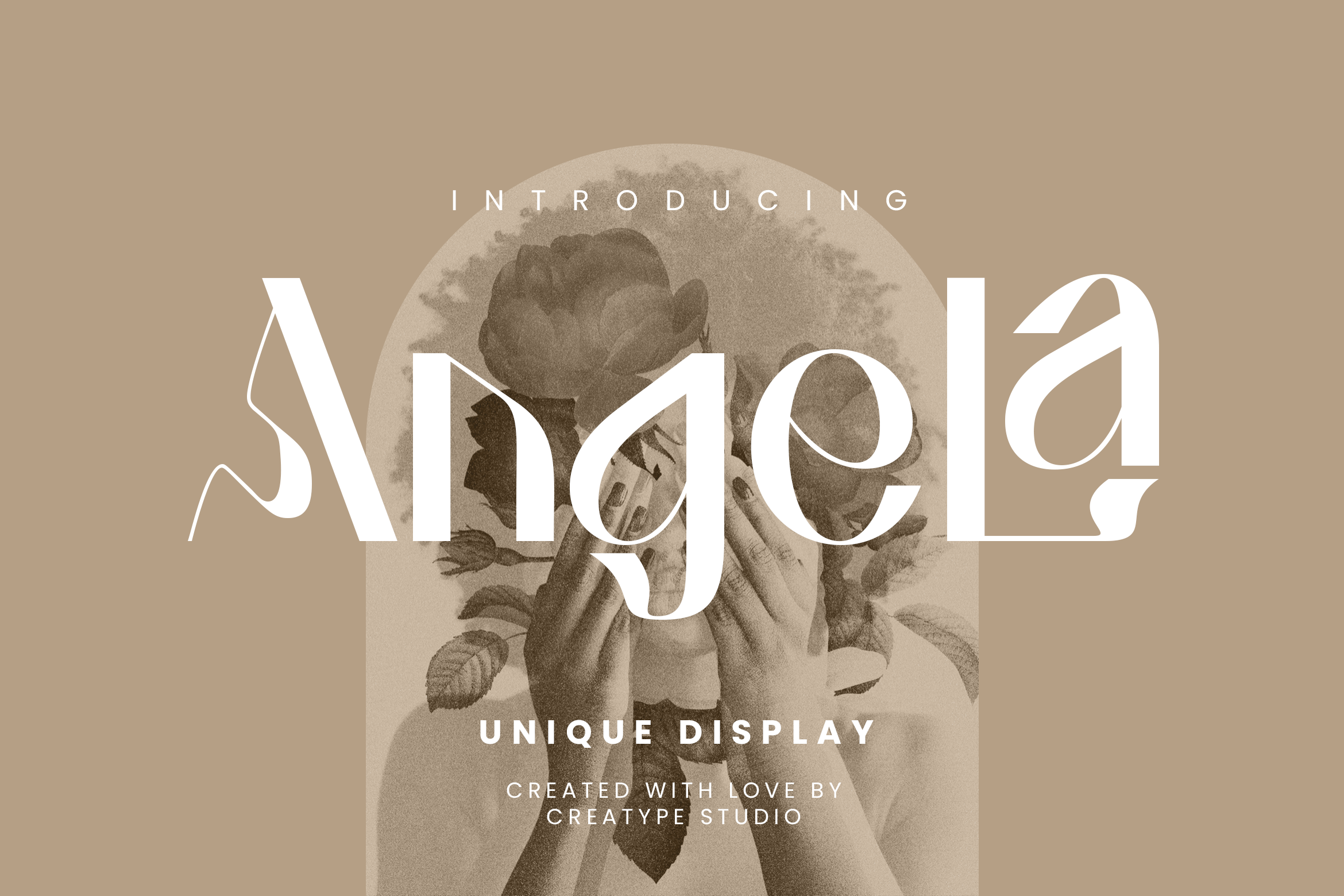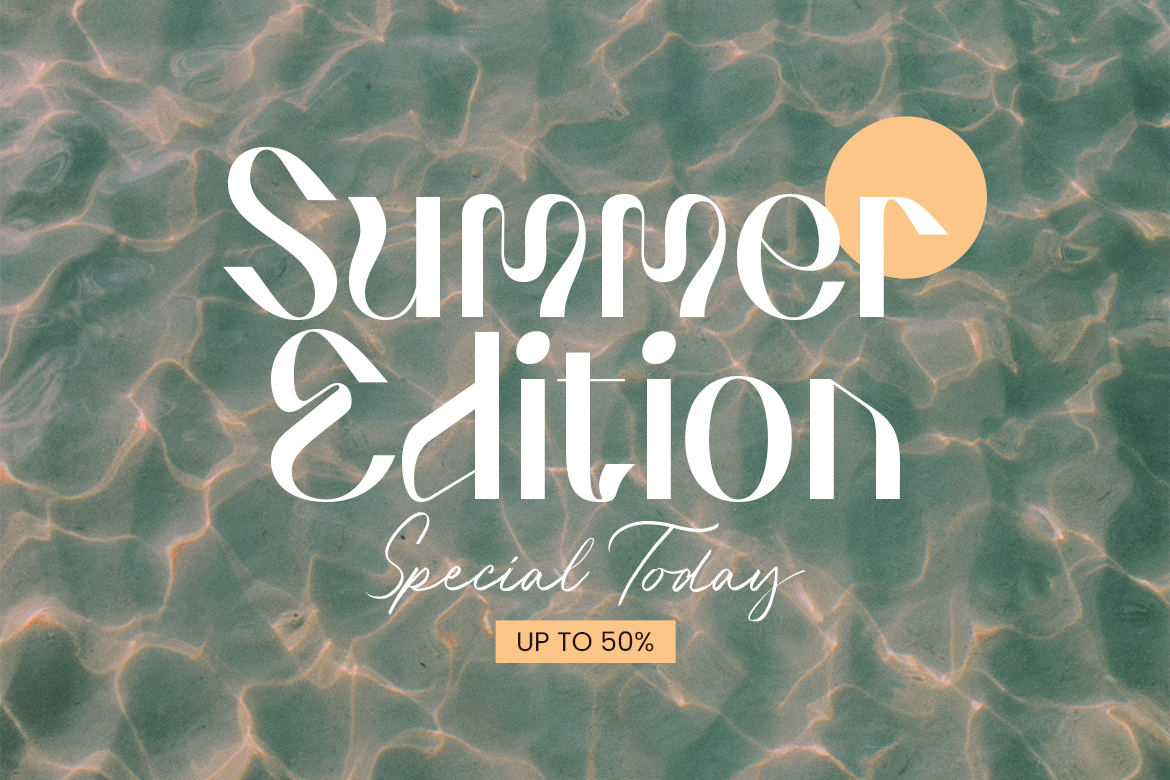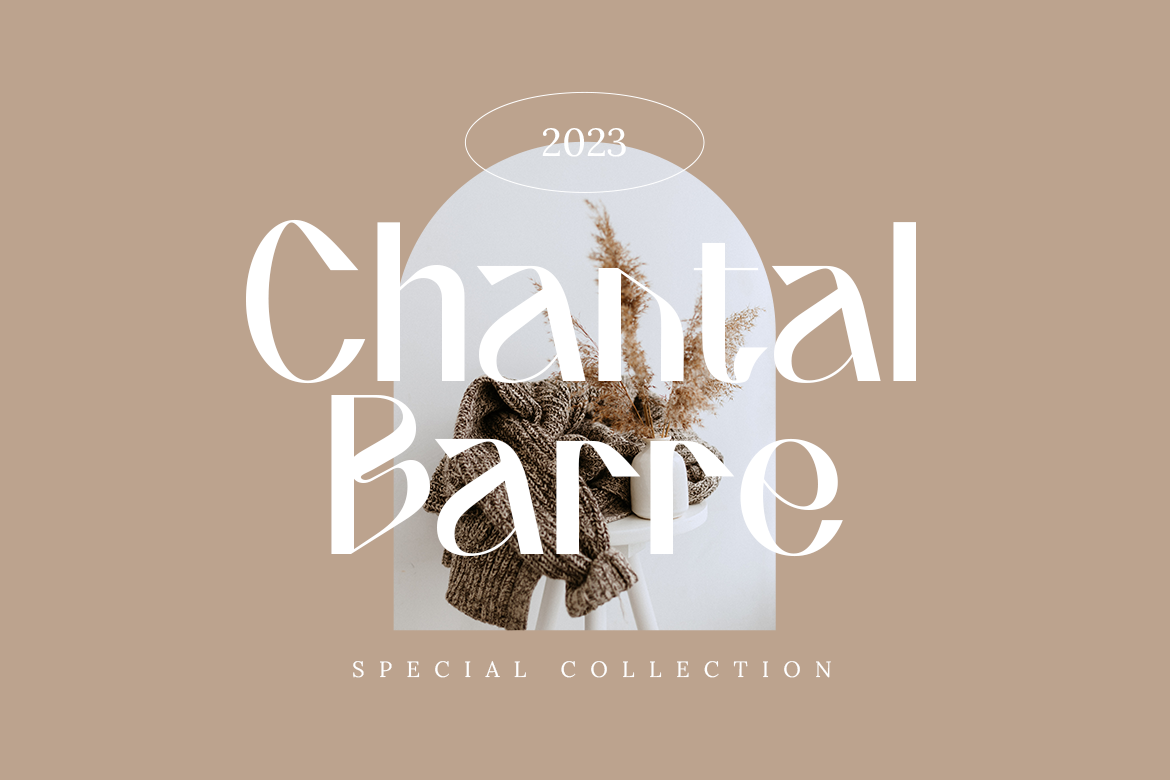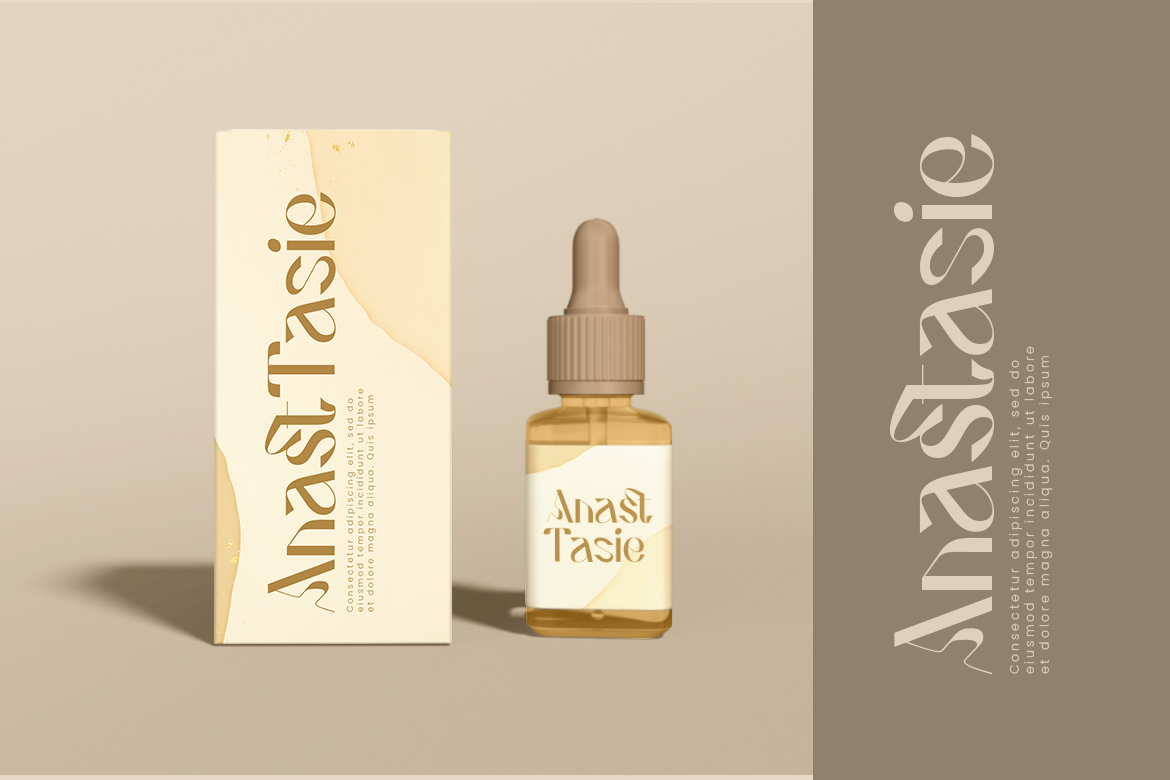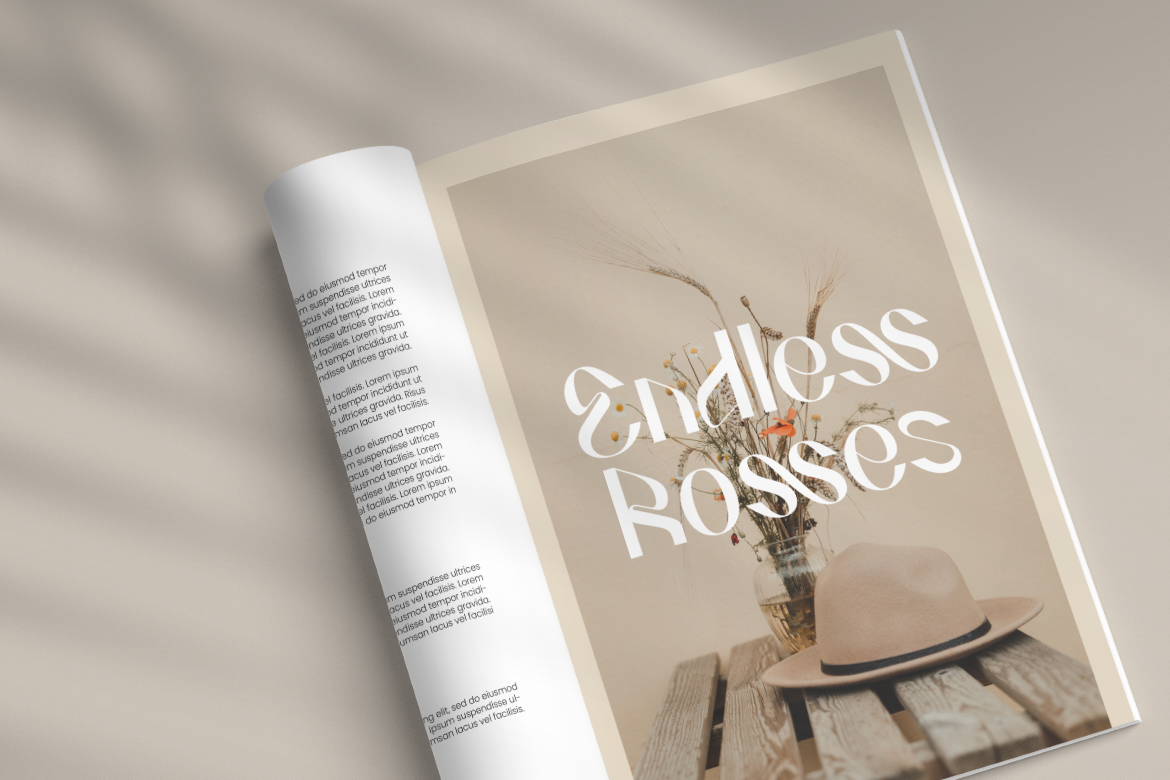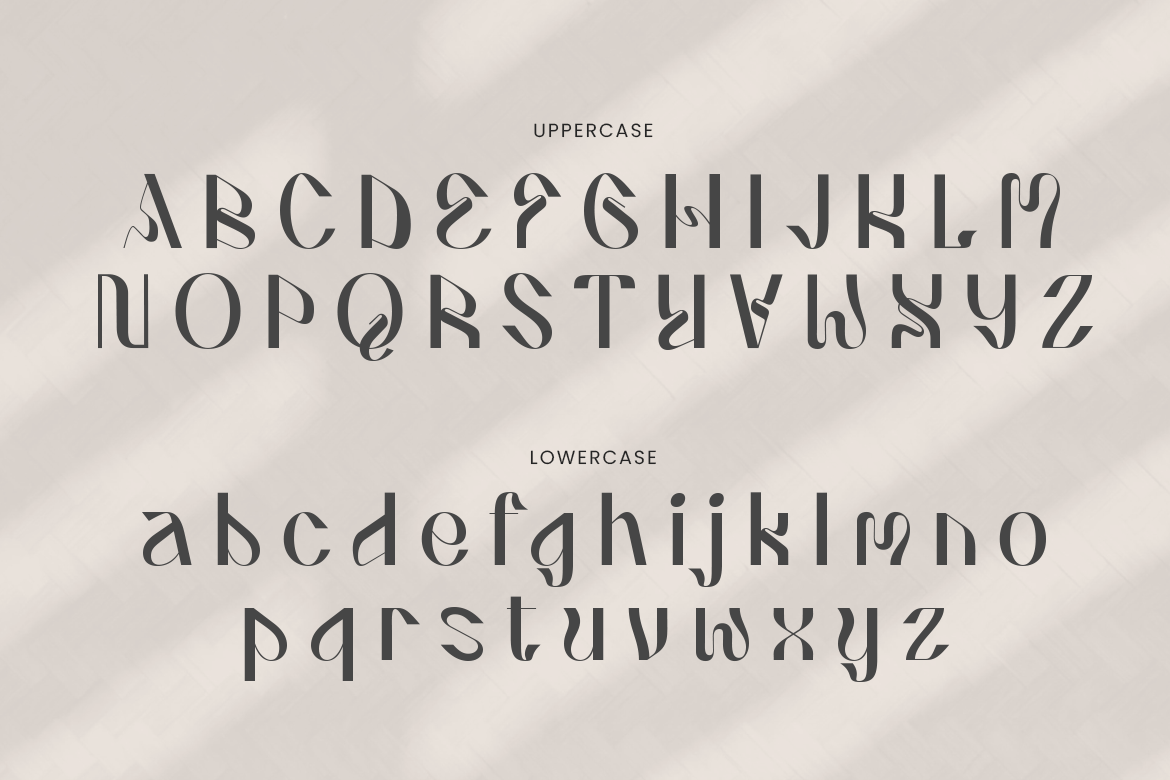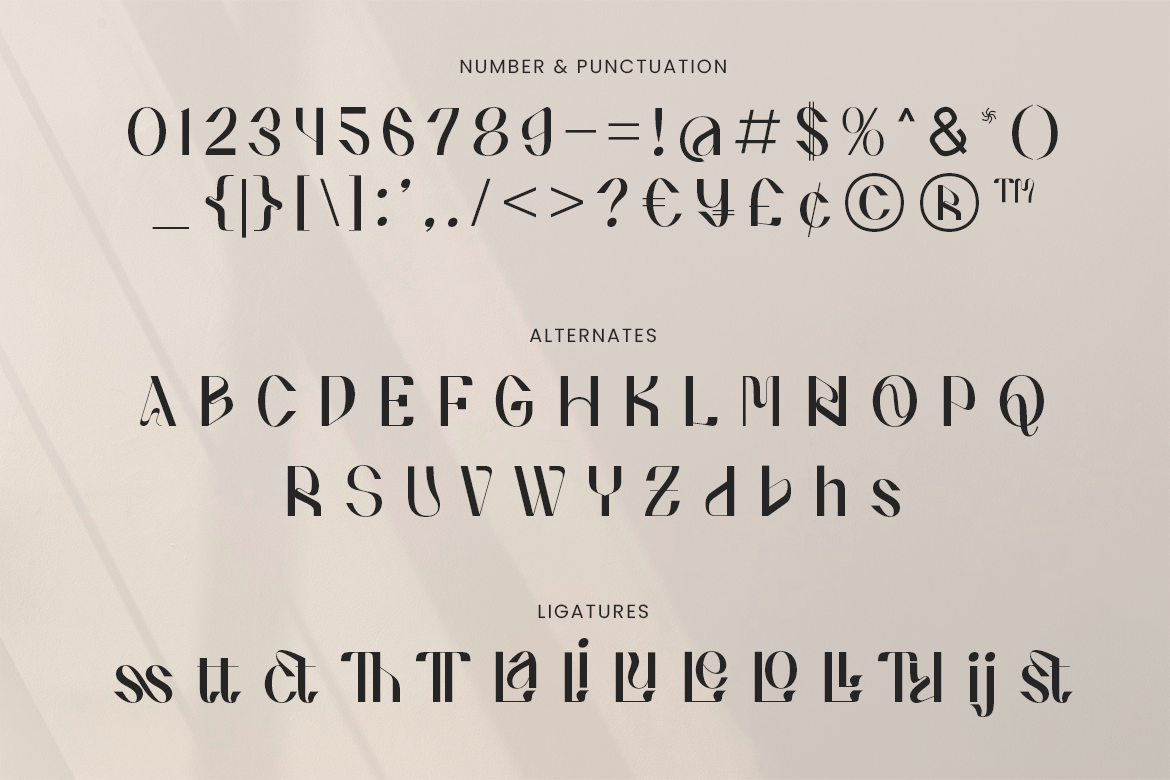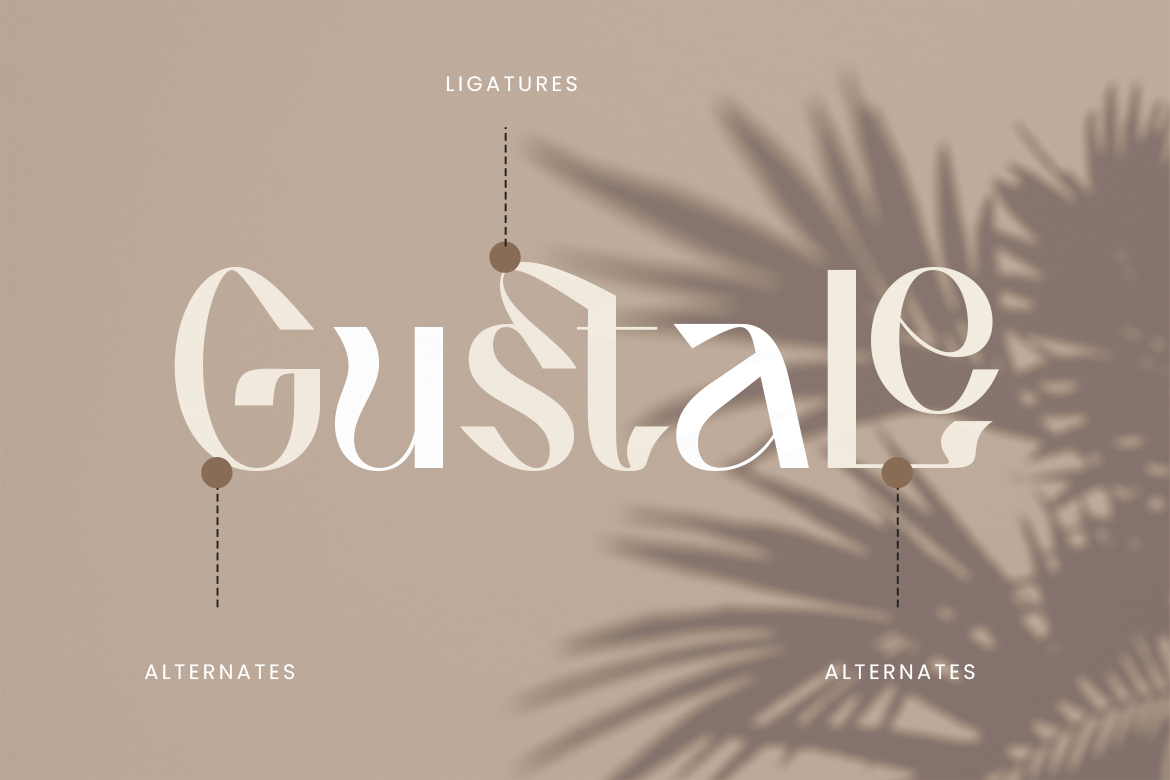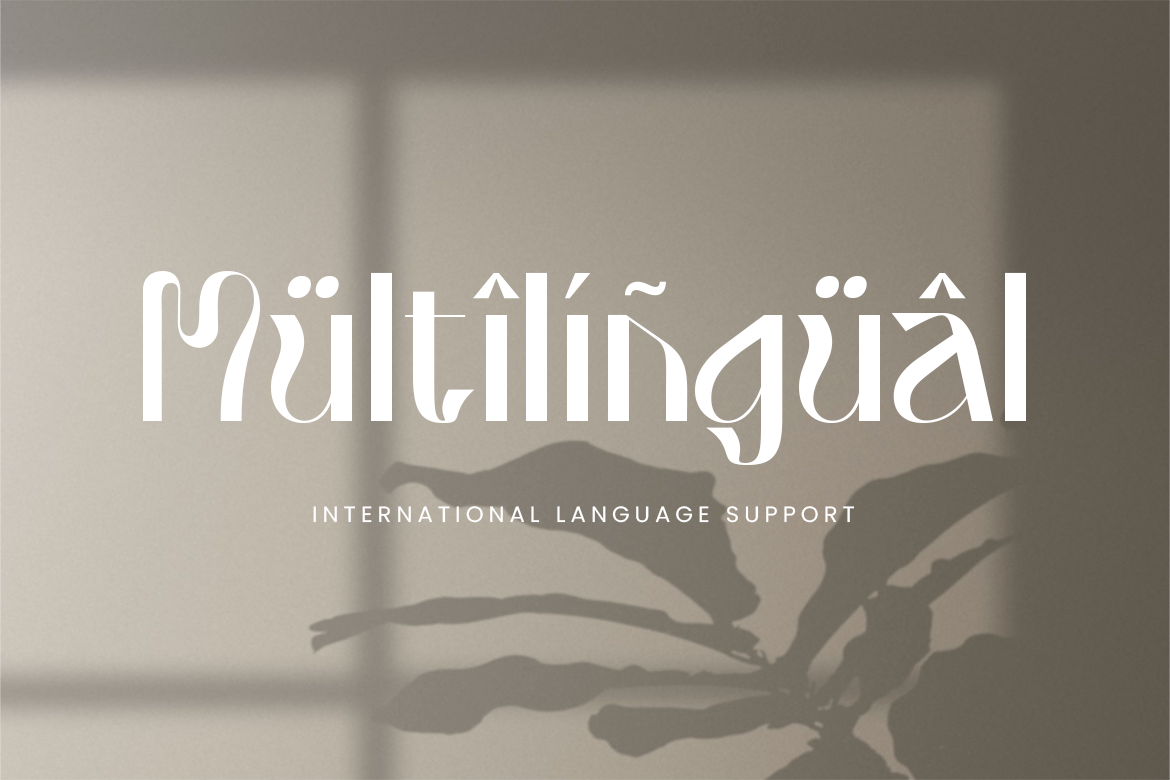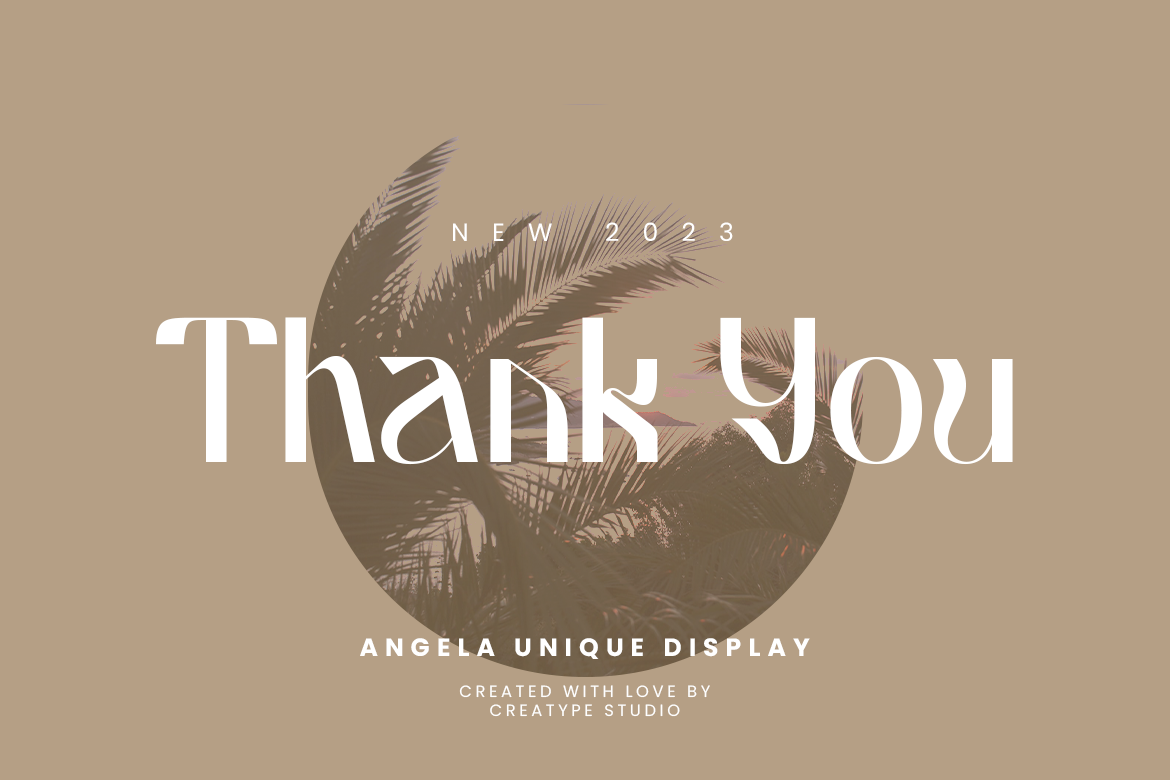
Angela Unique Display
Angela, the Unique Display typeface adds a touch of whimsy and sophistication to your designs with its wavy, elegant lines, creating a one-of-a-kind, eye-catching look.
Angela is perfect for branding projects, logos, wedding designs, social media posts, advertisements, product packaging, product designs, label, photography, watermark, invitation, stationery, and any projects that need handwriting taste.